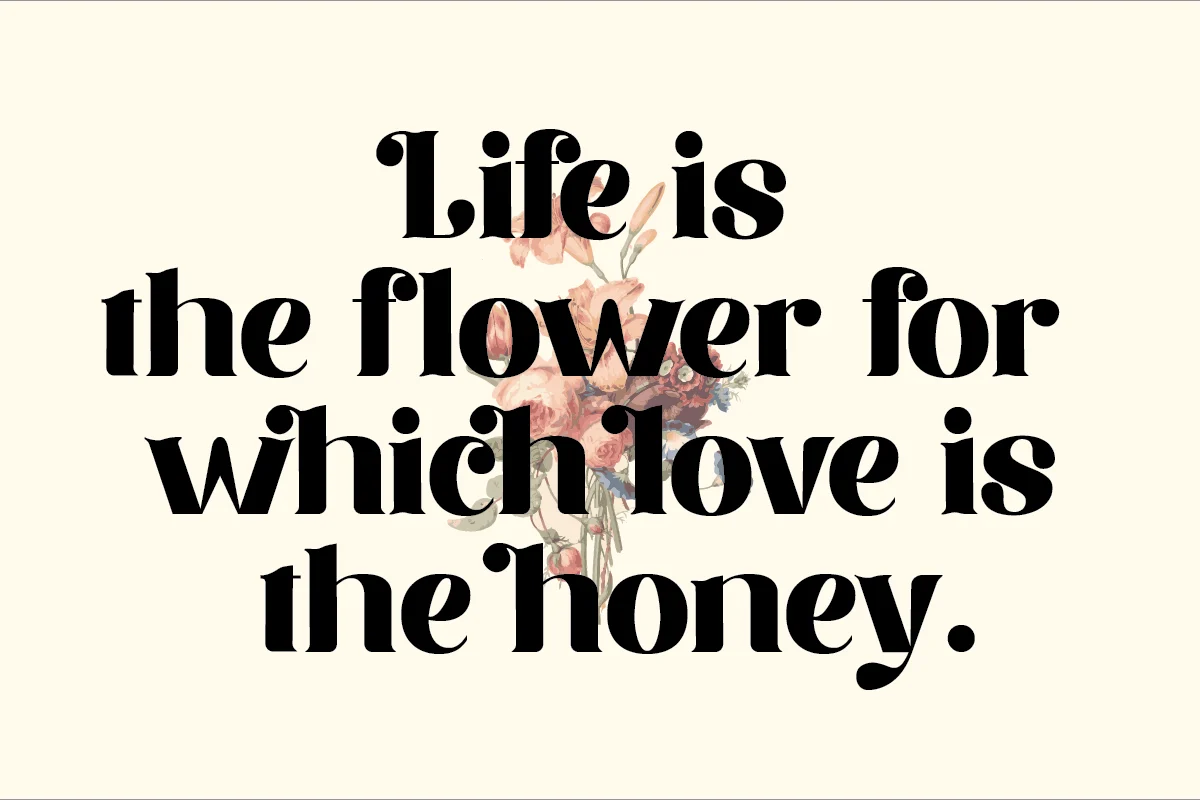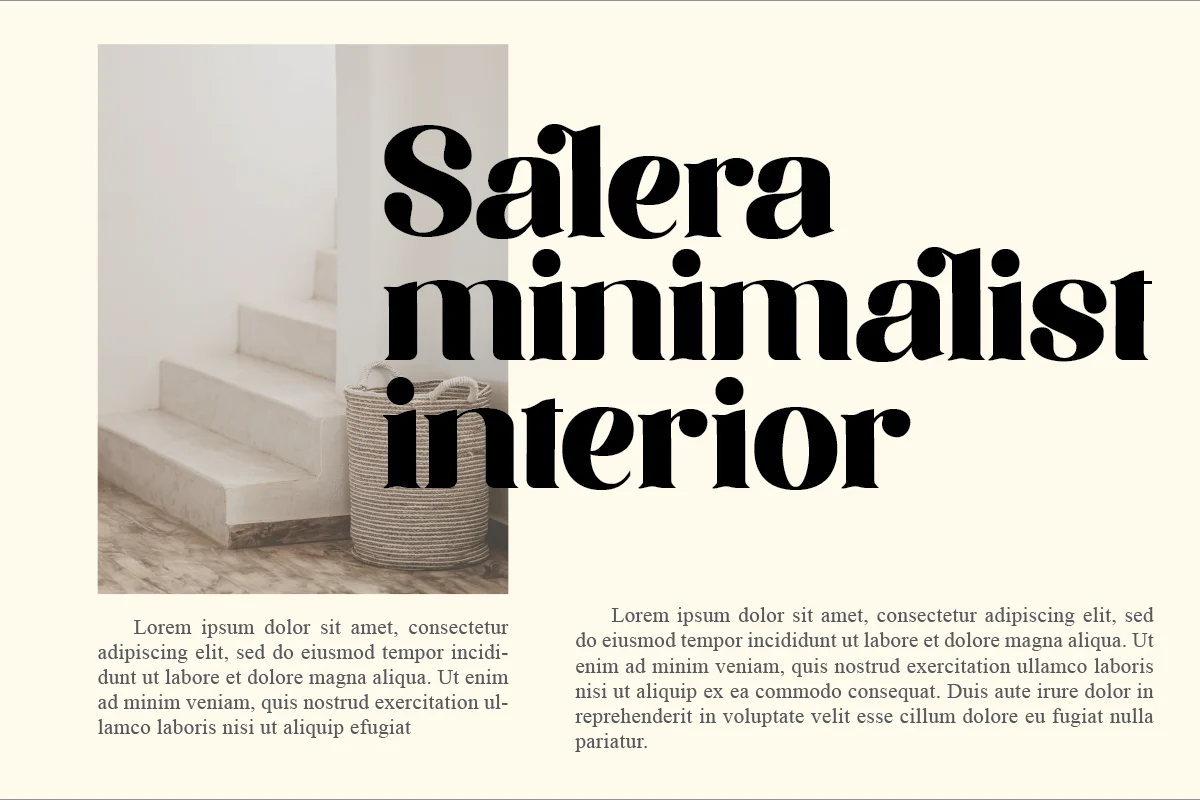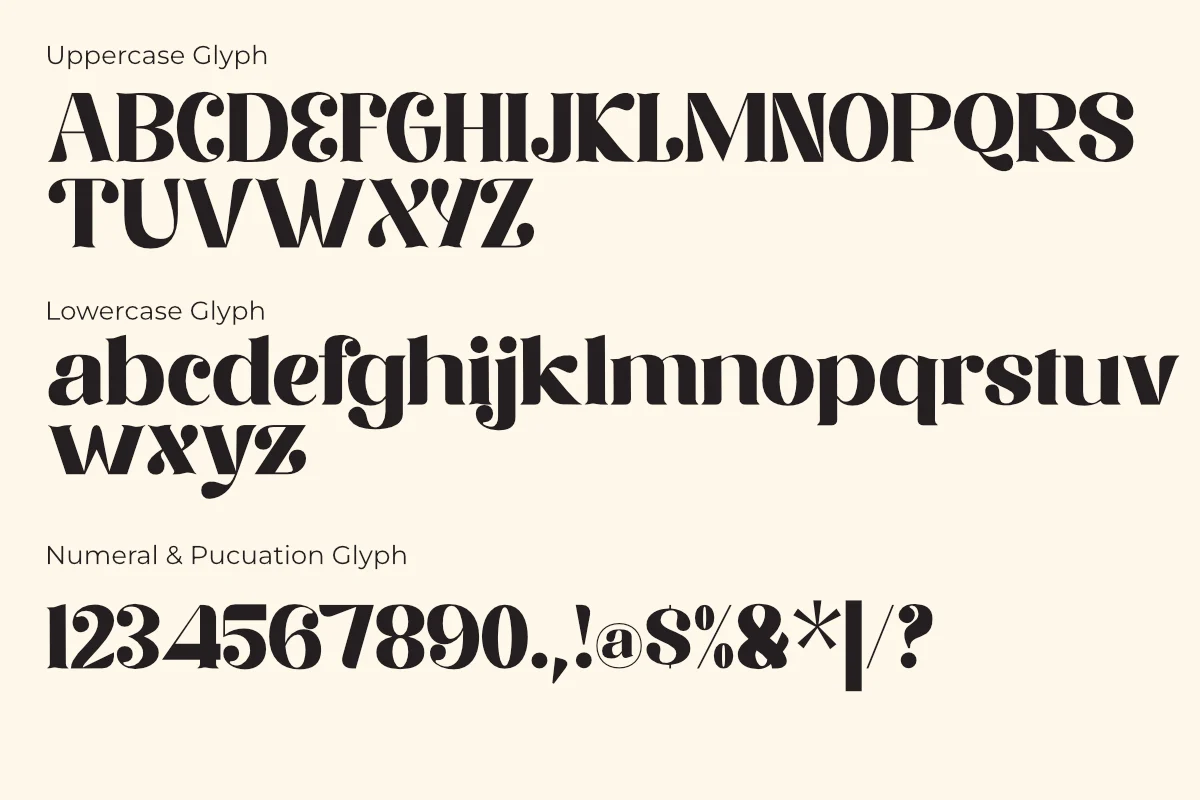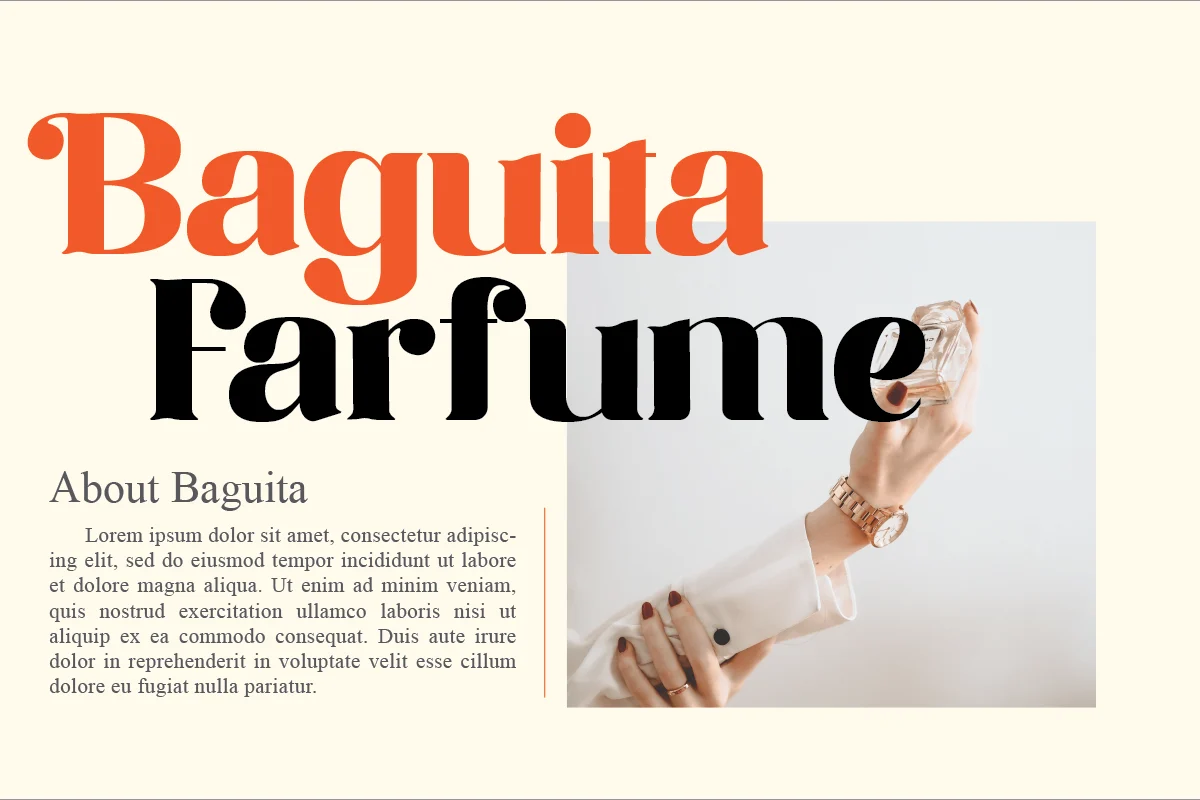
Merdian – Elegant Serif Font
Merdian is an elegant serif font with refined strokes and balanced proportions. Designed to combine classic sophistication with a modern touch, it works beautifully for logos, branding, editorial layouts, invitations, and packaging. Its graceful letterforms and subtle contrasts make it versatile for both display titles and stylish text compositions.
Uppercase & lowercase letters
Numbers & punctuation included
Multilingual support
Stylistic alternates & ligatures
Elegant serif details with subtle contrast
Optimized kerning for readability